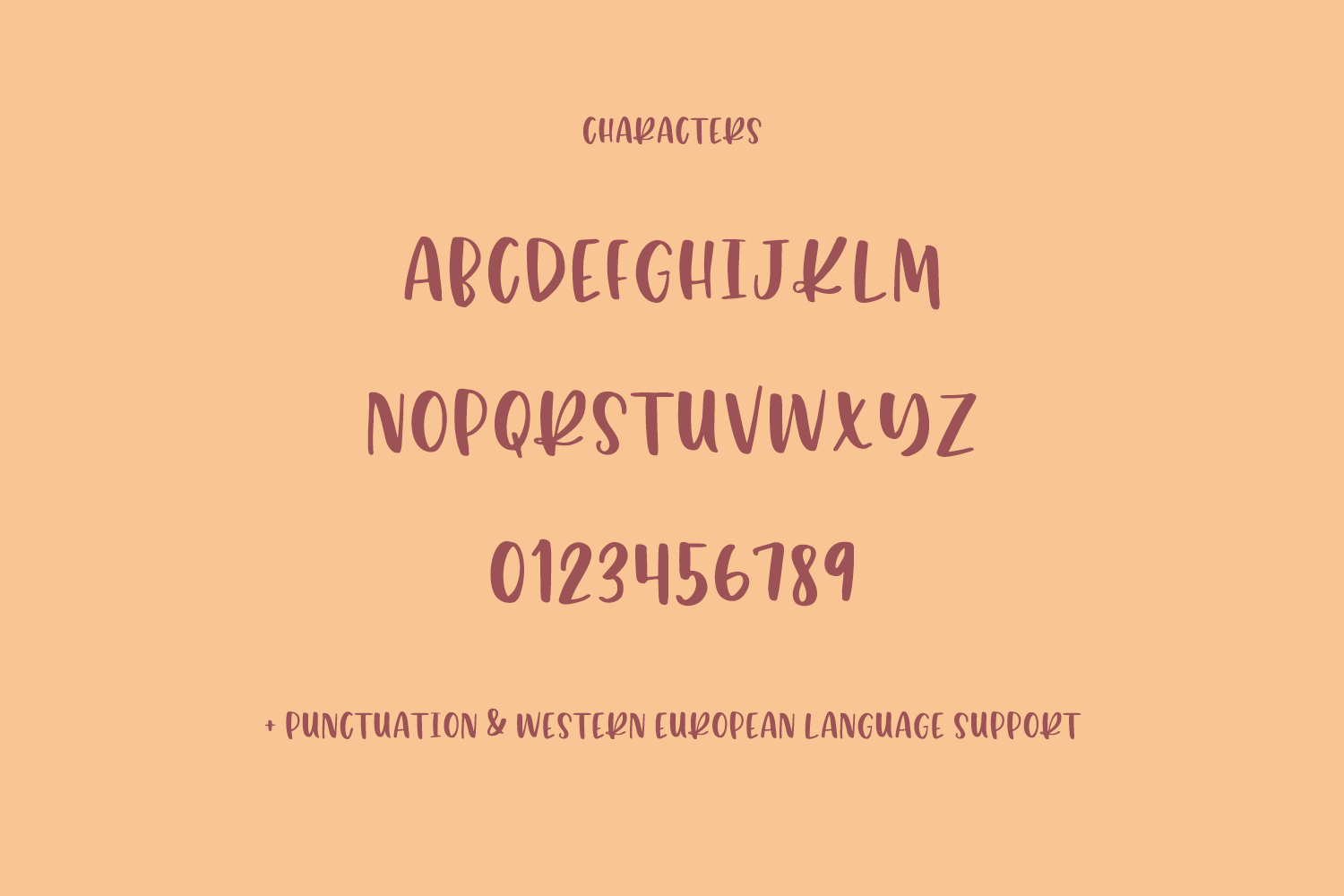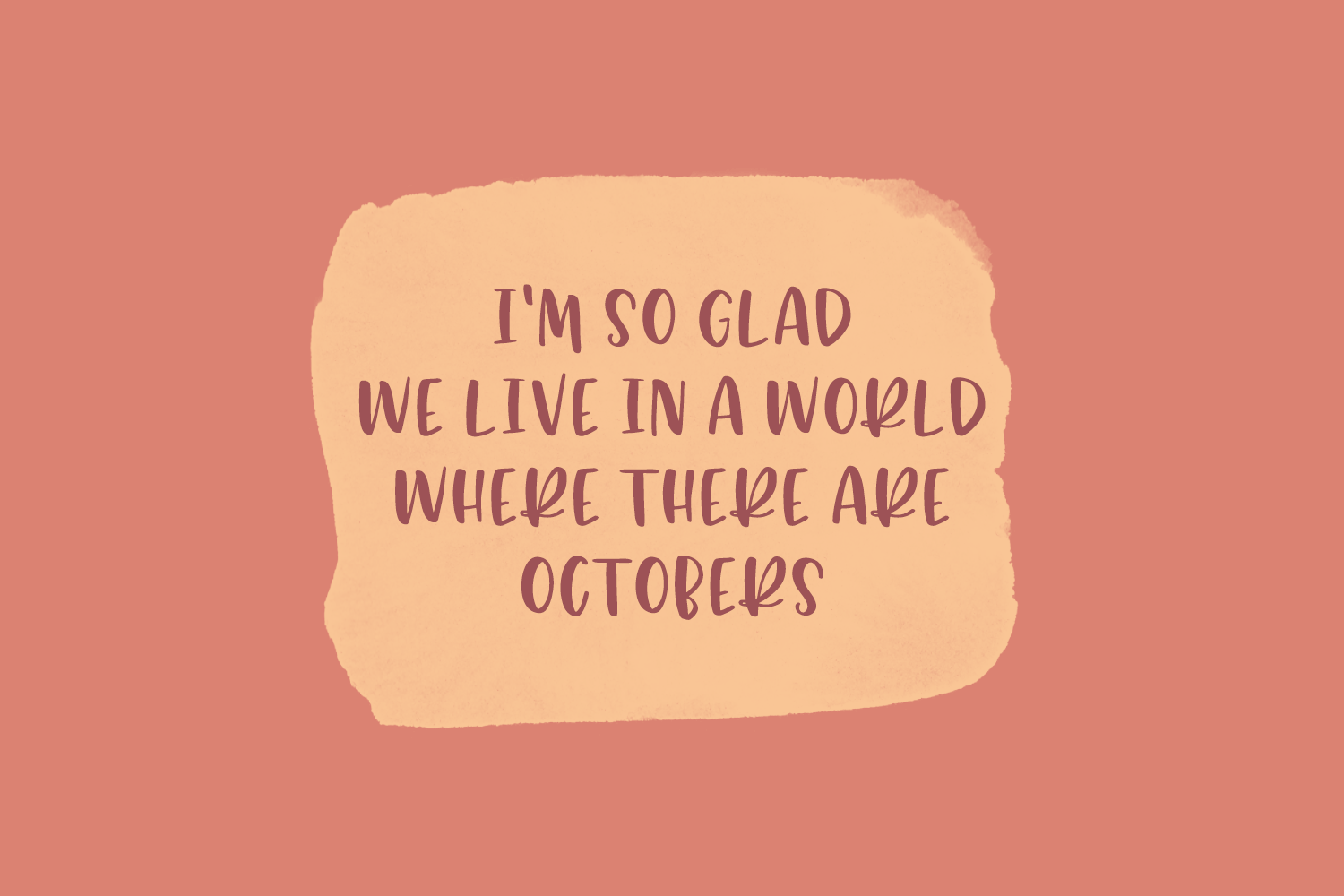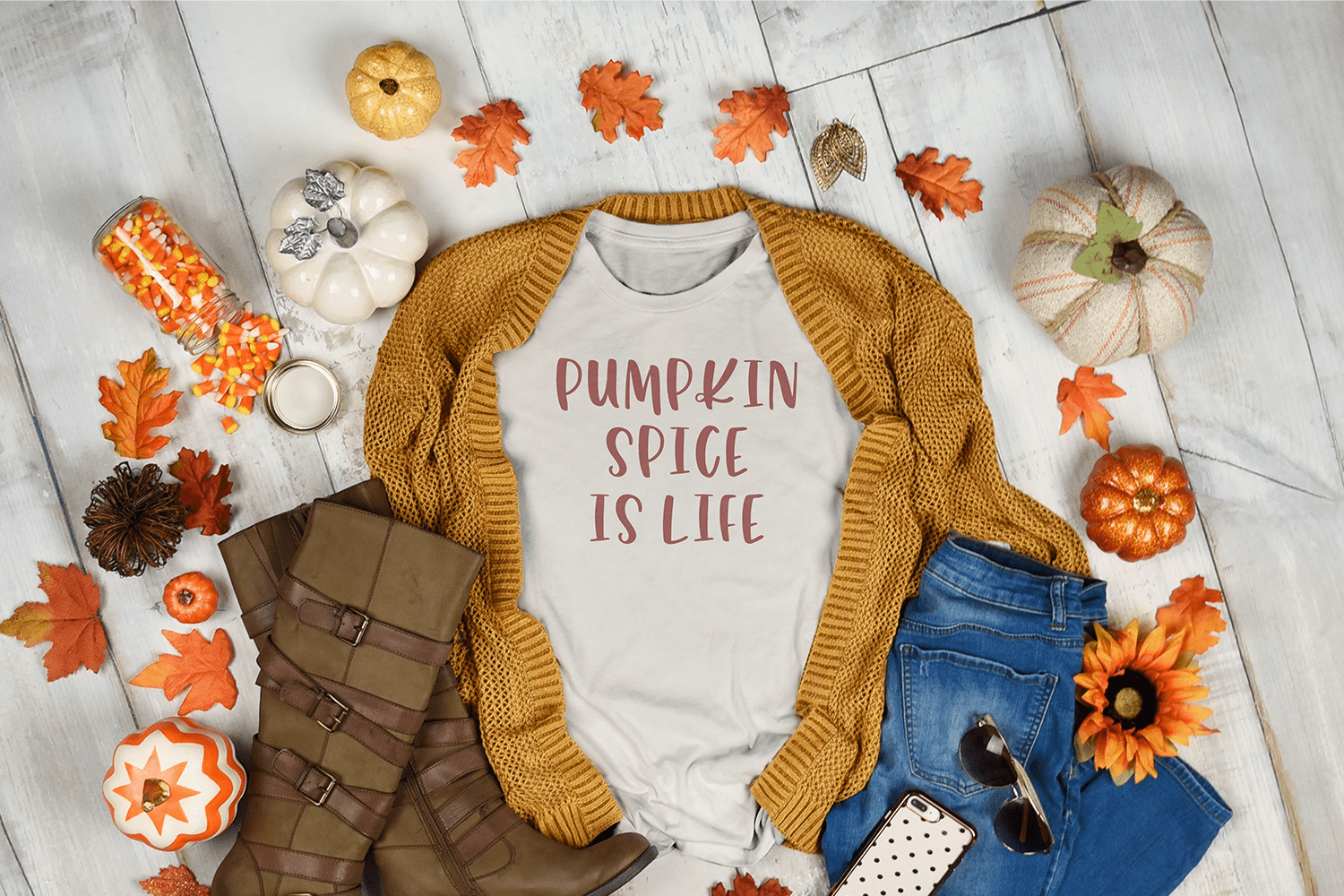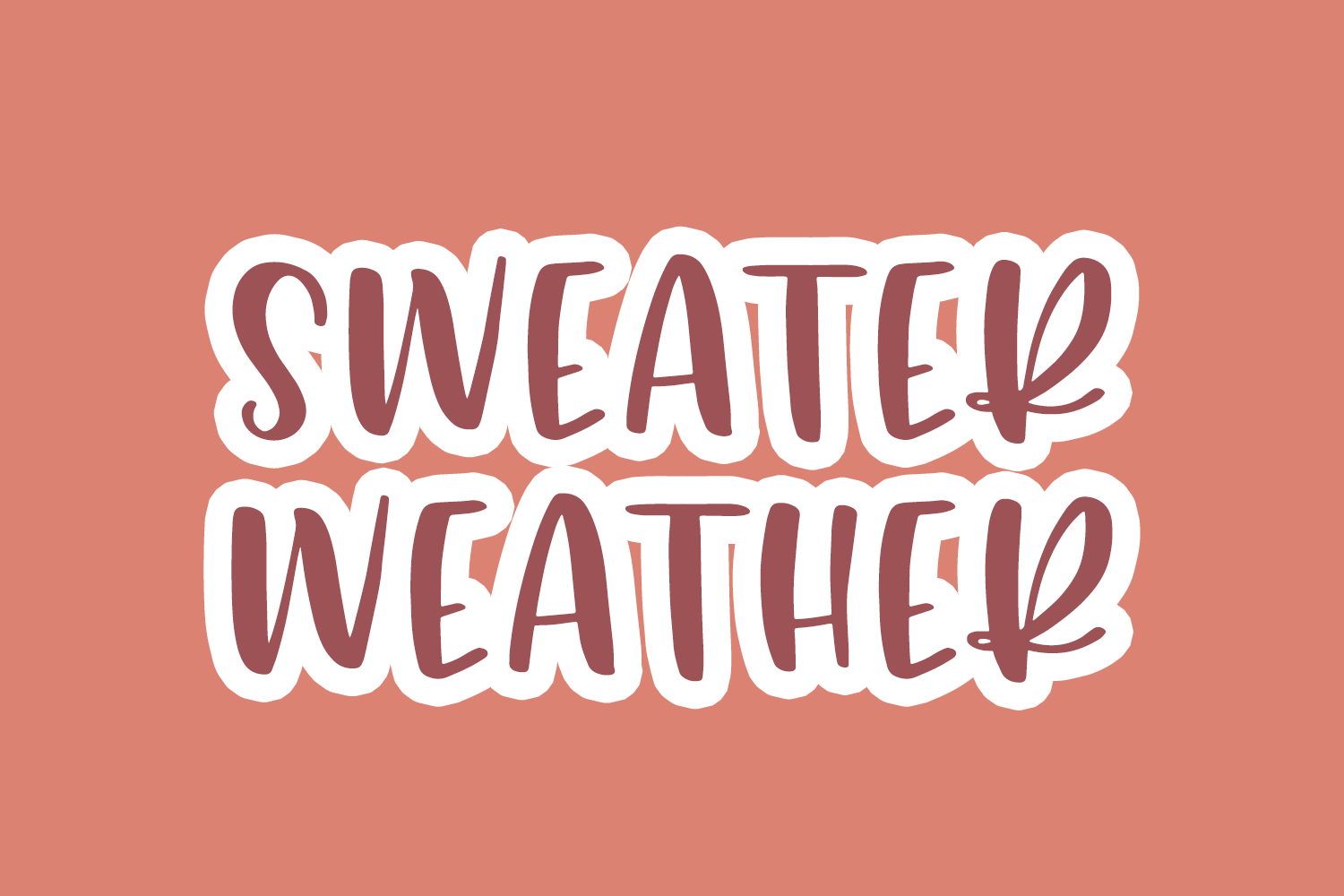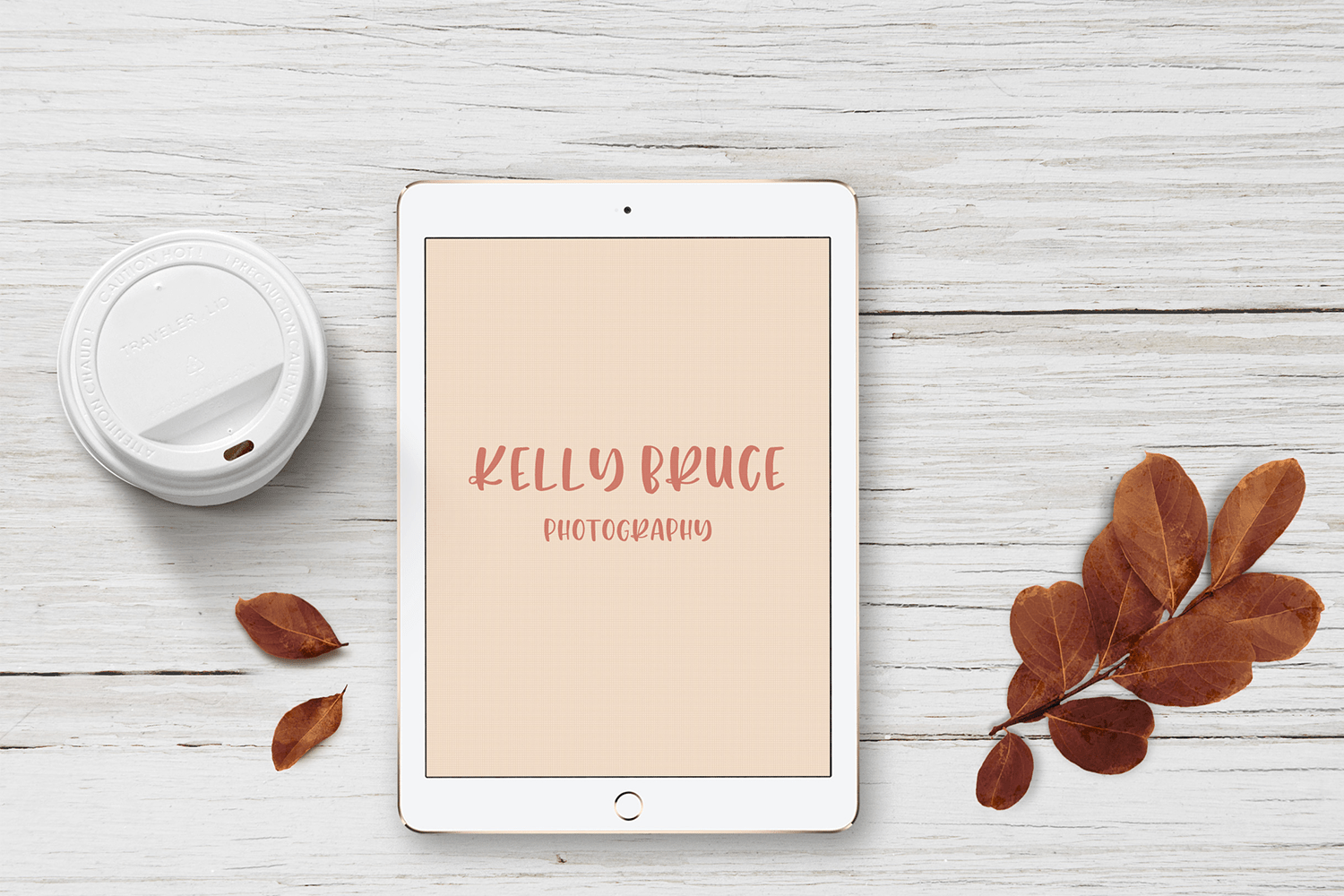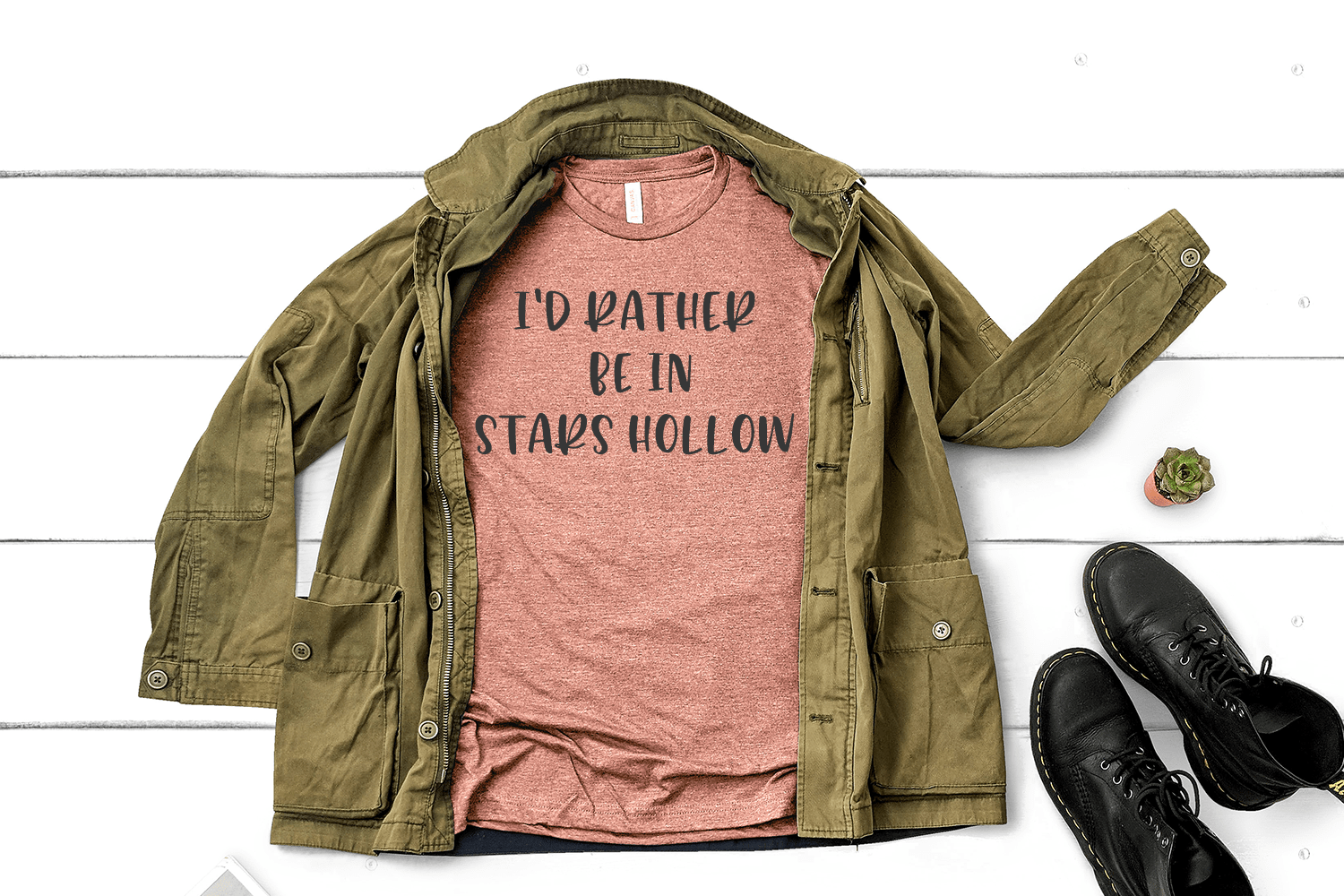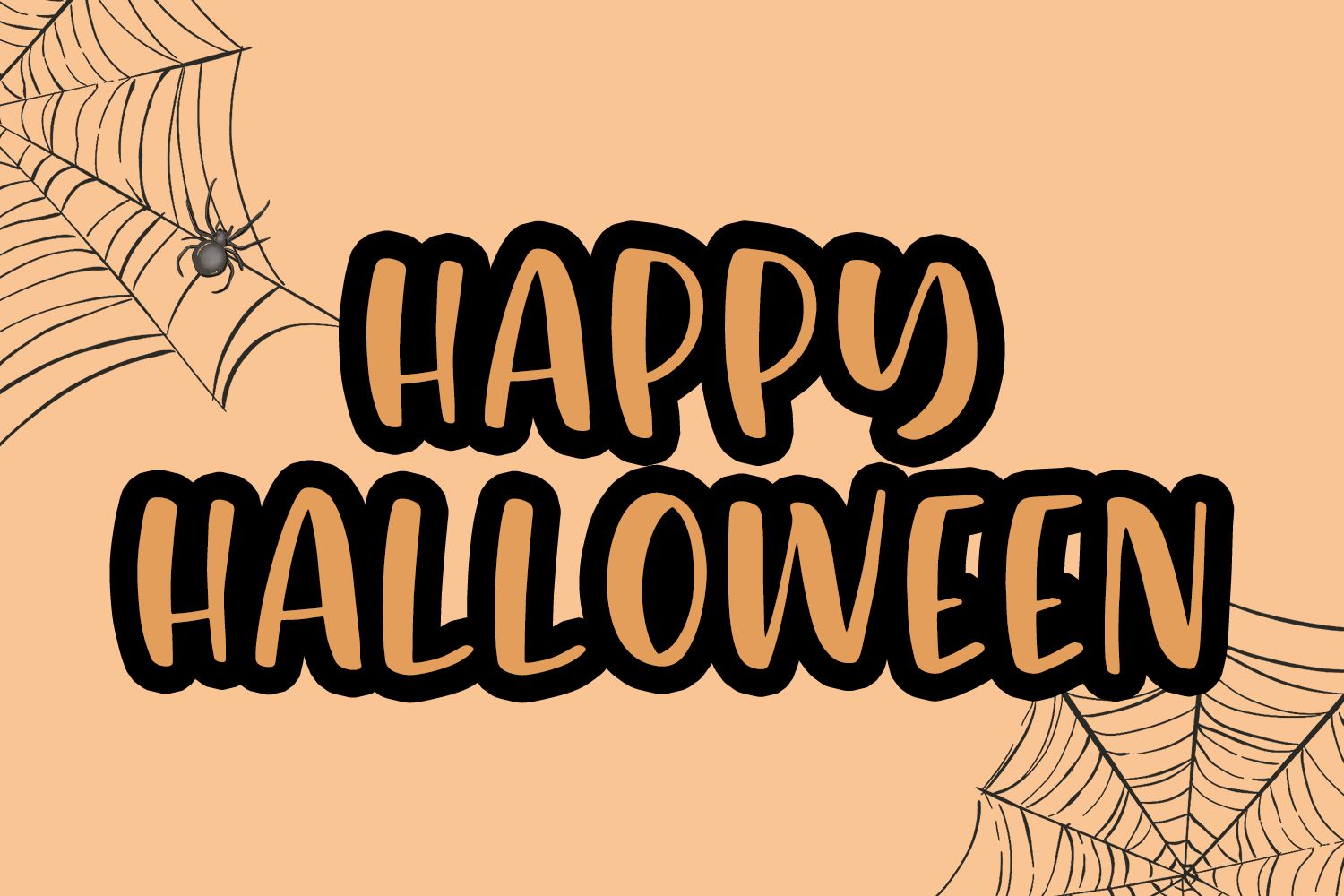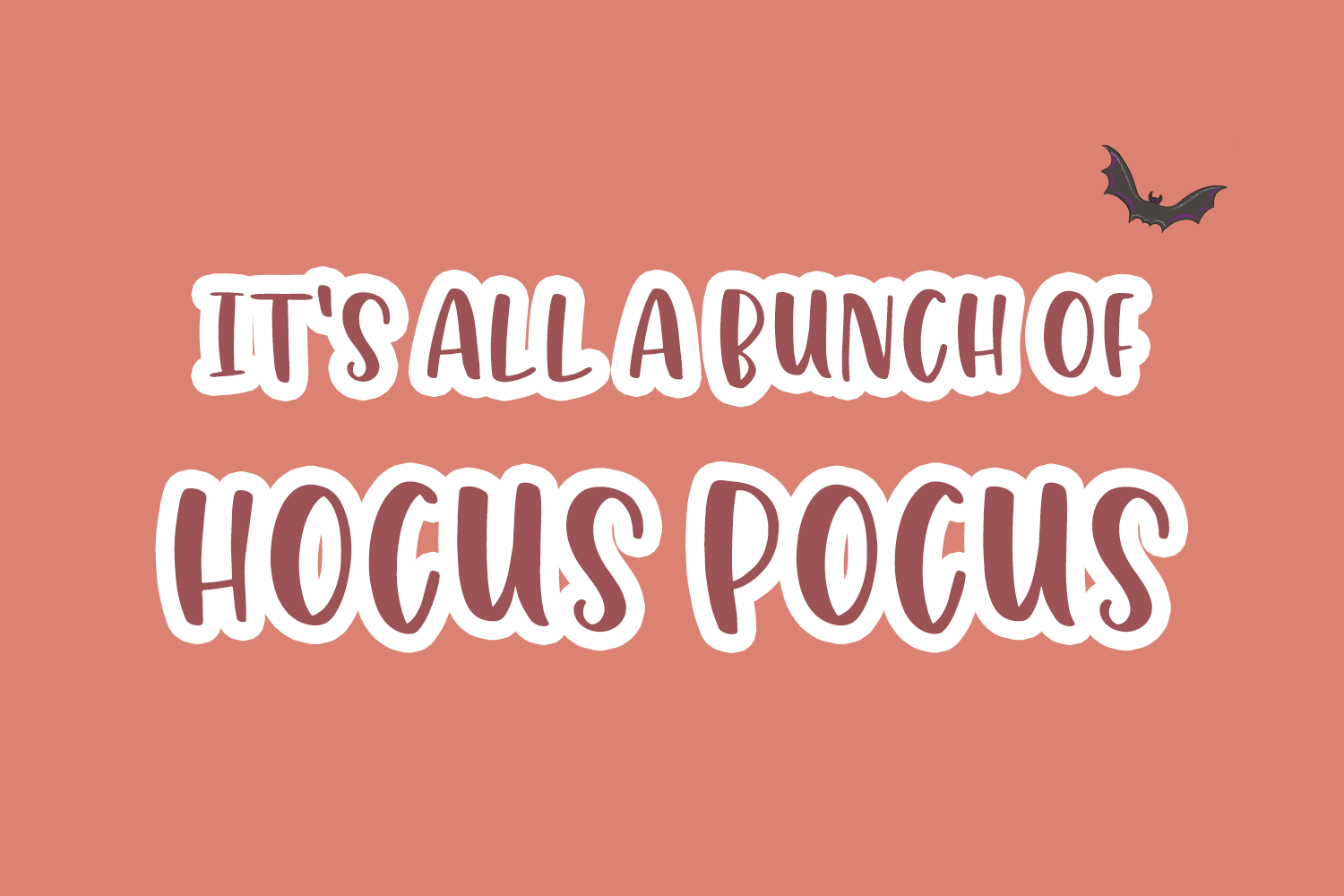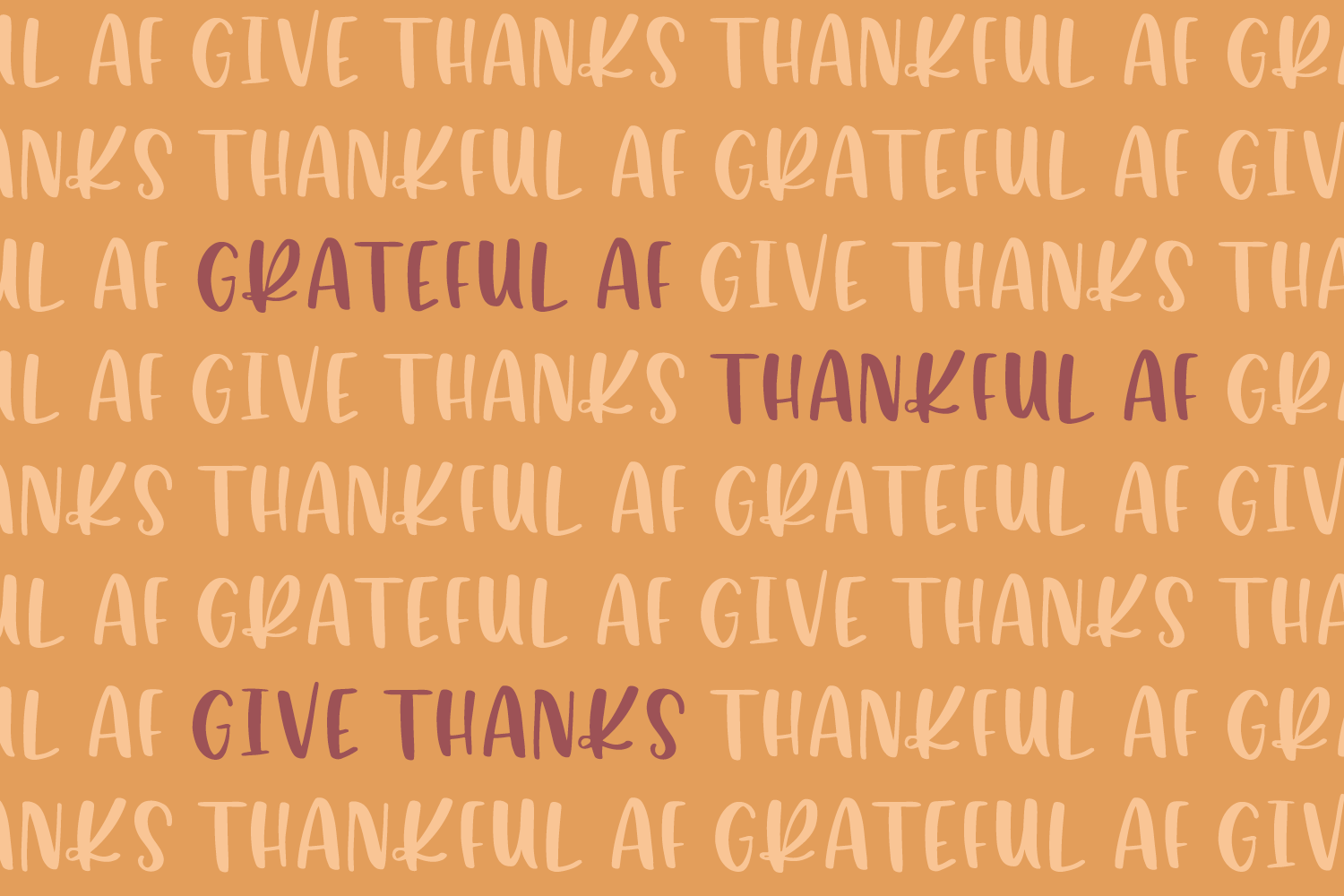
Meet the Pumpkin Chunk, an all caps sans font!
Pumpkin Chunk is best for:
– website header elements needing a bold, slightly feminine, funky touch
– clean print design, like magazines + flyers
– logos + branding
– quote graphics for social media
– uppercase characters only